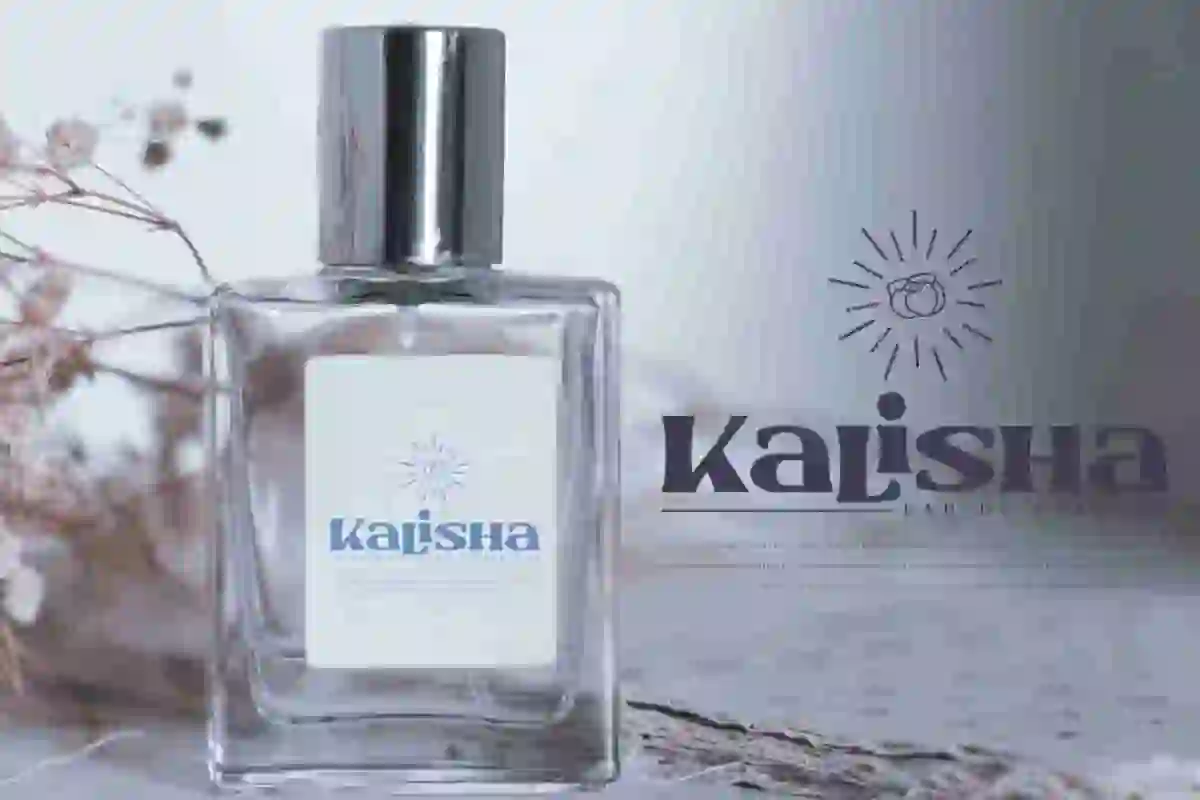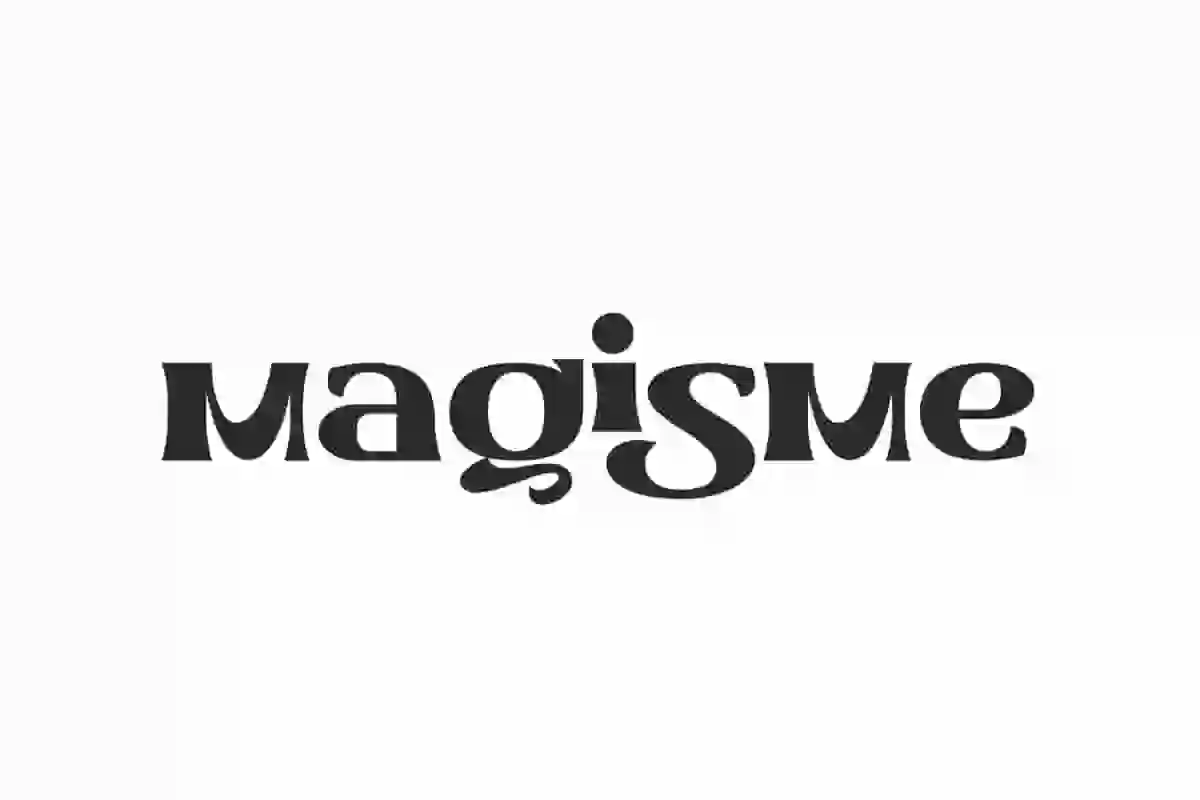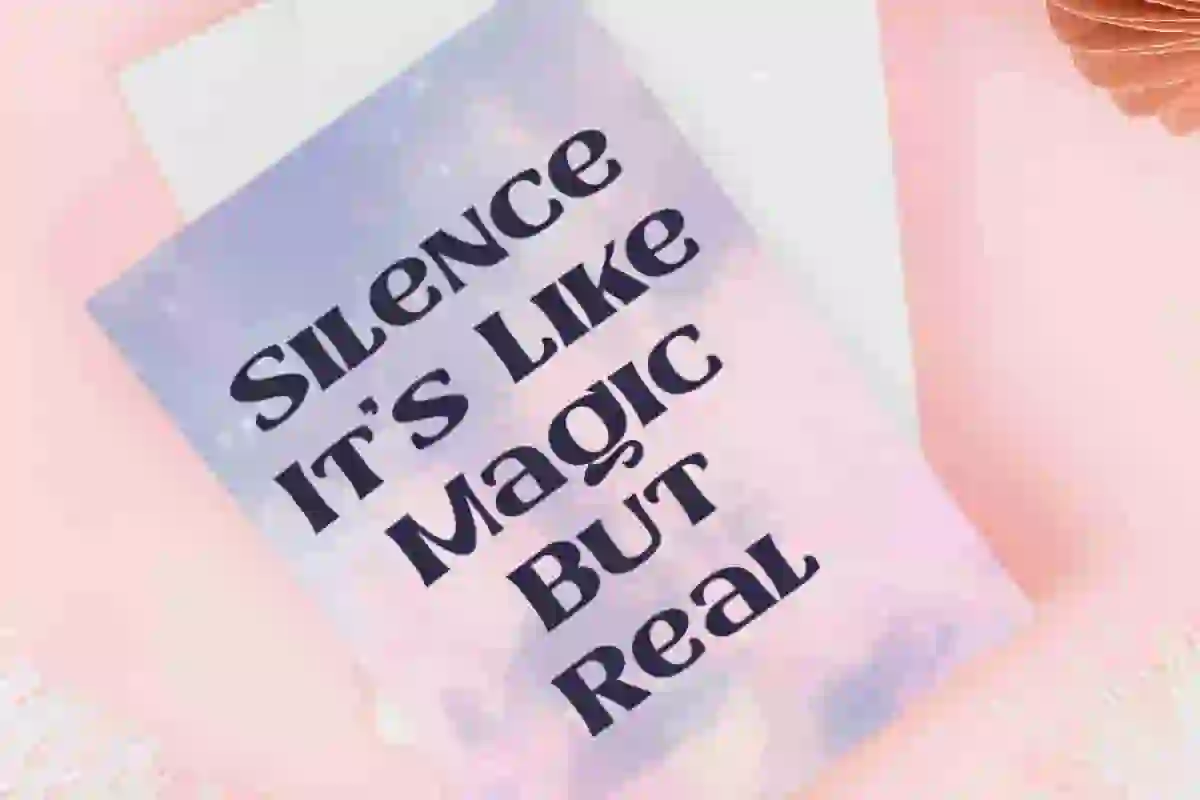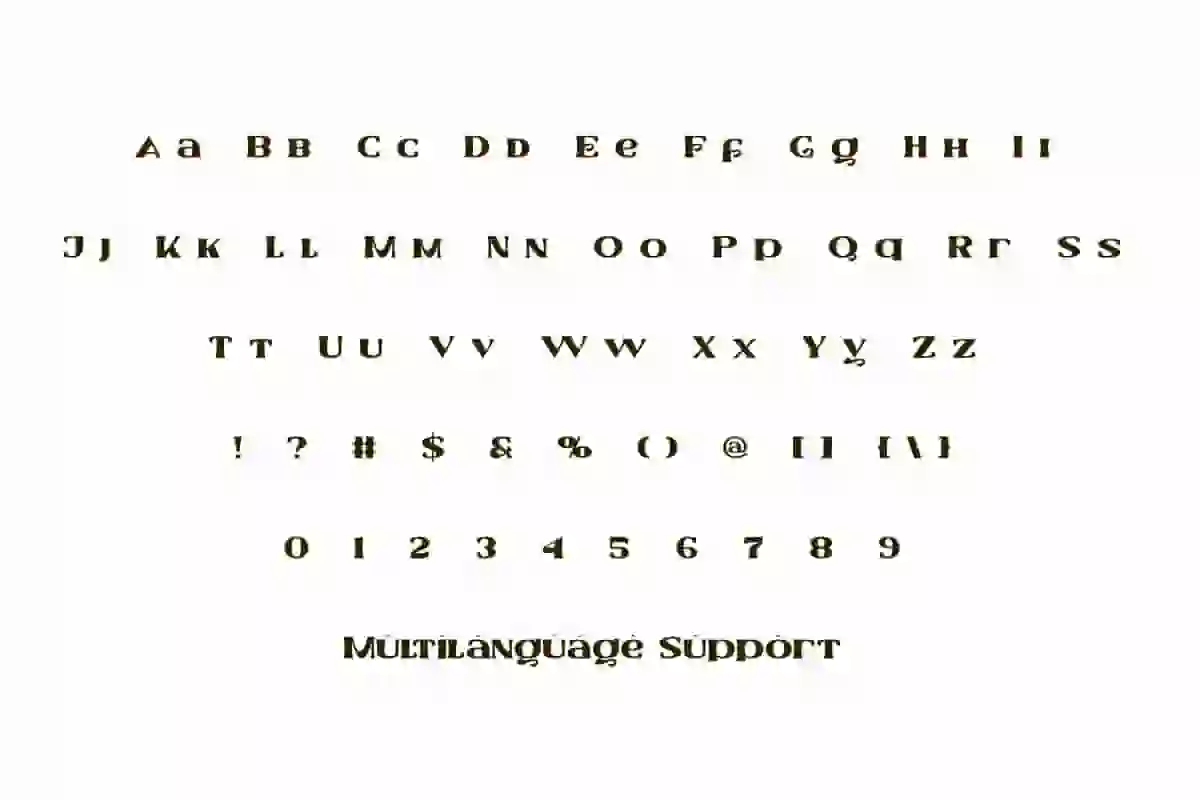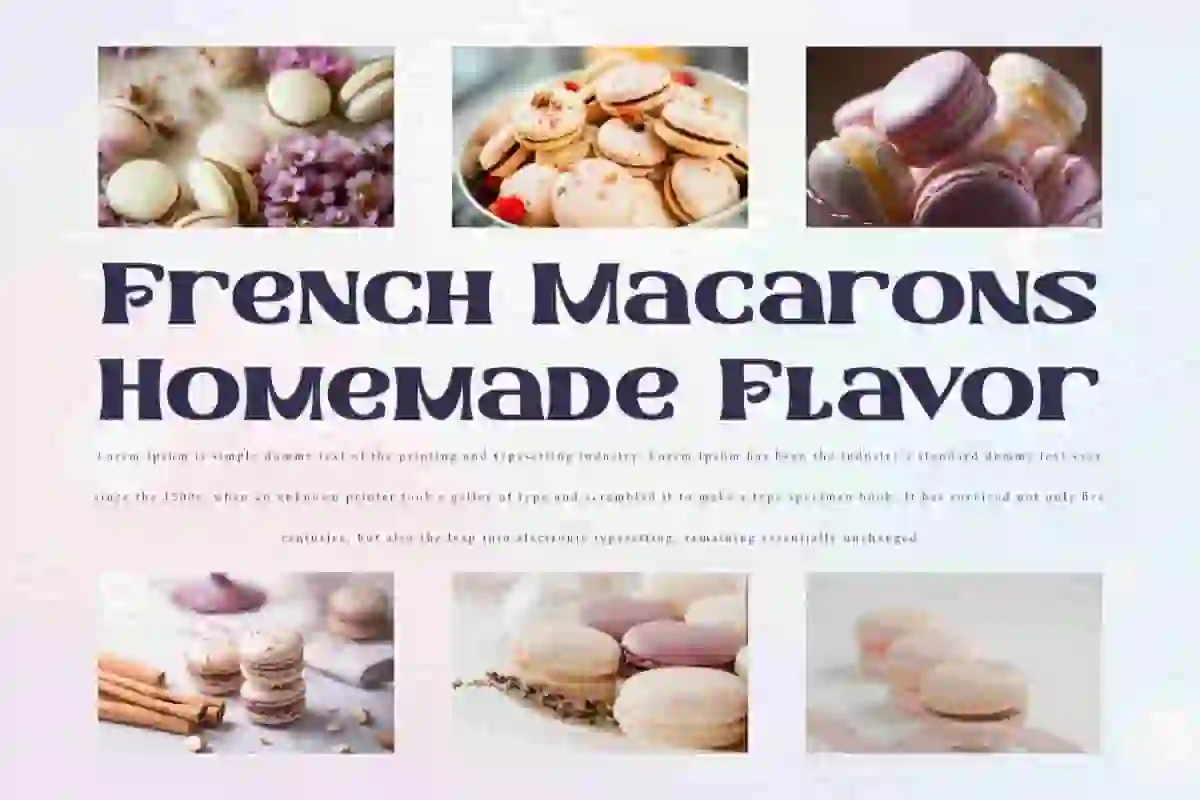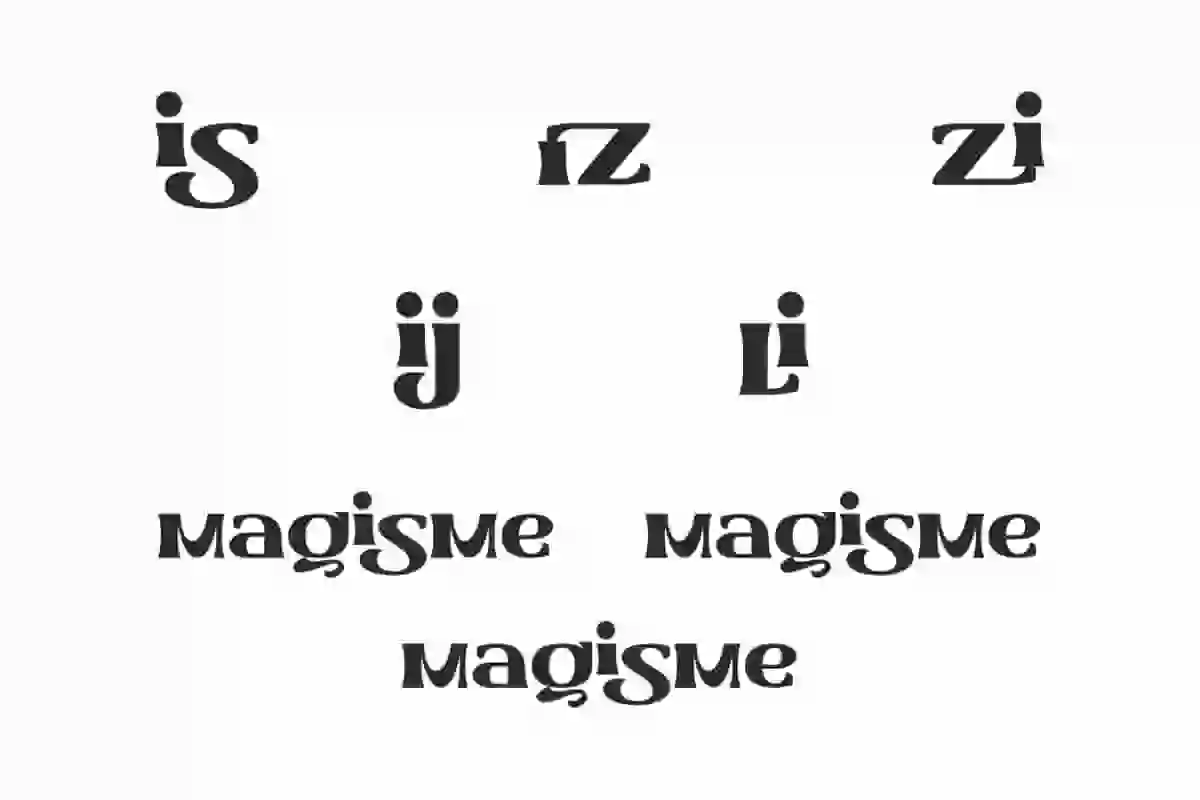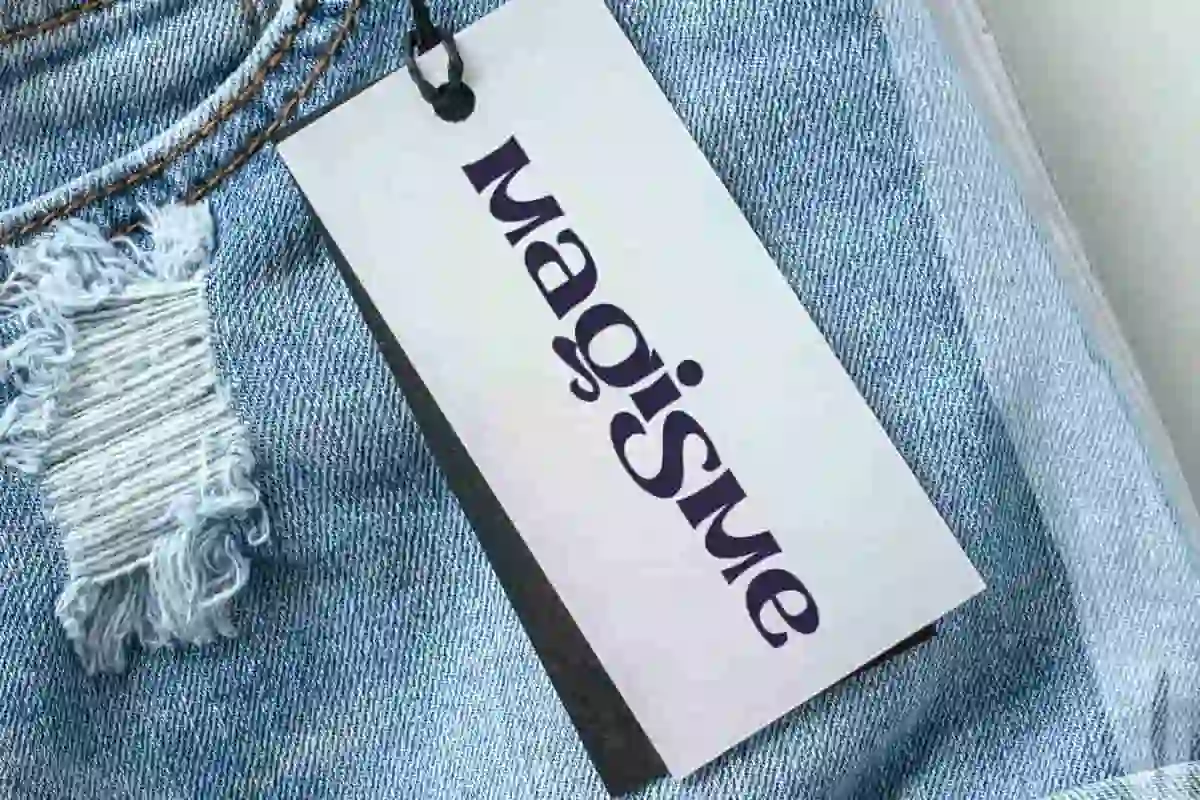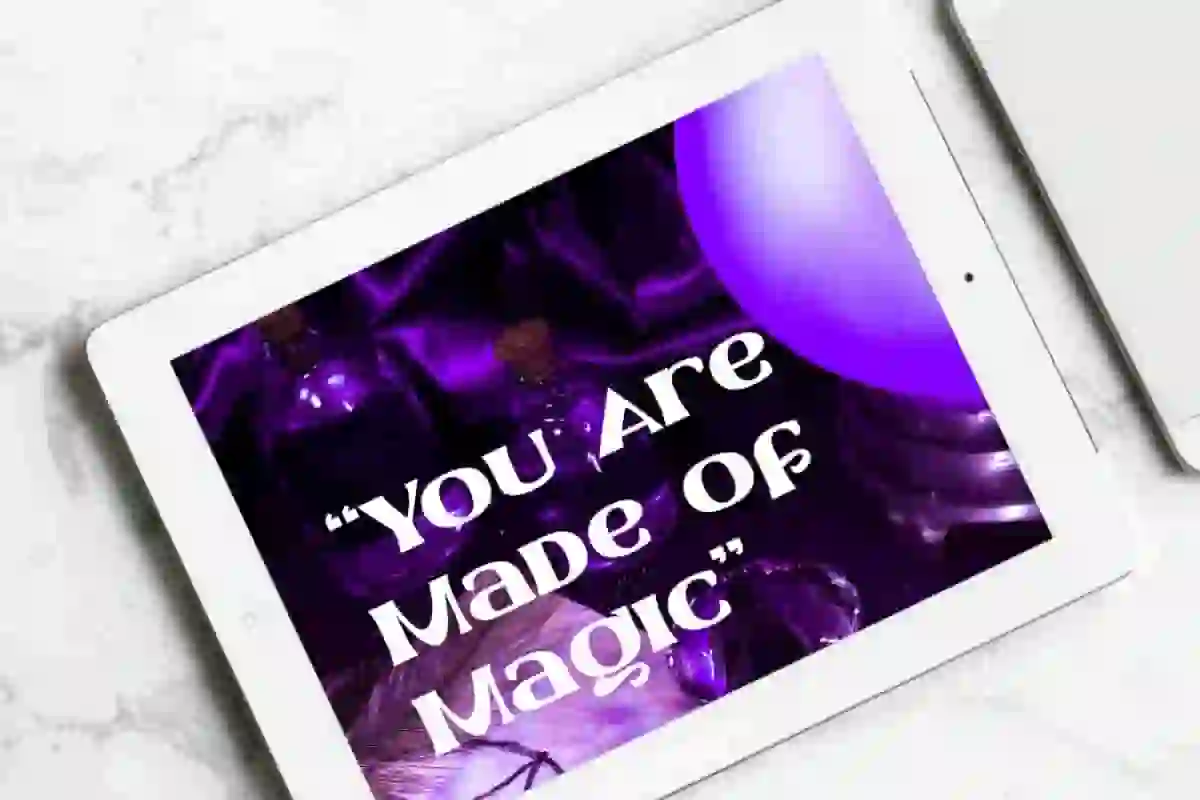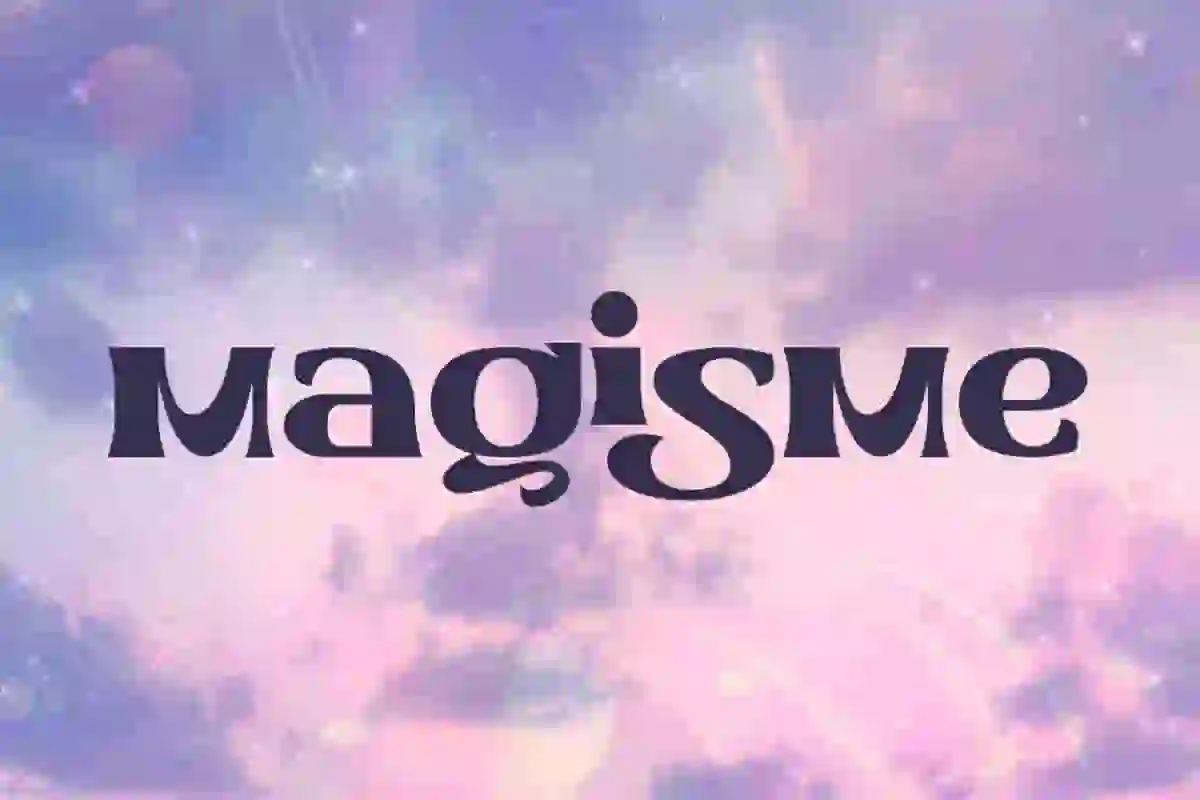
Magisme Font
Magisme Font is an impressive modern groove style display font that will catch the eye. It conveys a majestic bold  look that is made even more fun.
Magisme Font is a captivating display font inspired by modern grooves, combining boldness and soft curves to create an irresistible charm. This font is extremely versatile and works well in both large and small sizes. Perfect for blogs, brochure, cover, greeting card, headers, headlines, label, logos, mockup, packaging, poster, quotes, sticker, tags, template, text art on background, title, web design, and much more.
Magisme Font contains a complete set of basic Uppercase and Lowercase characters, Numbers, Punctuation, Symbols and Ligature. This font is perfectly crafted and has minimal errors so it will be perfect for all your creative ideas, such as accessories and merchandise, advertising, bakery, cafes, fashion, fragrance brand, home furniture, graphic design, photography, restaurant, and others.